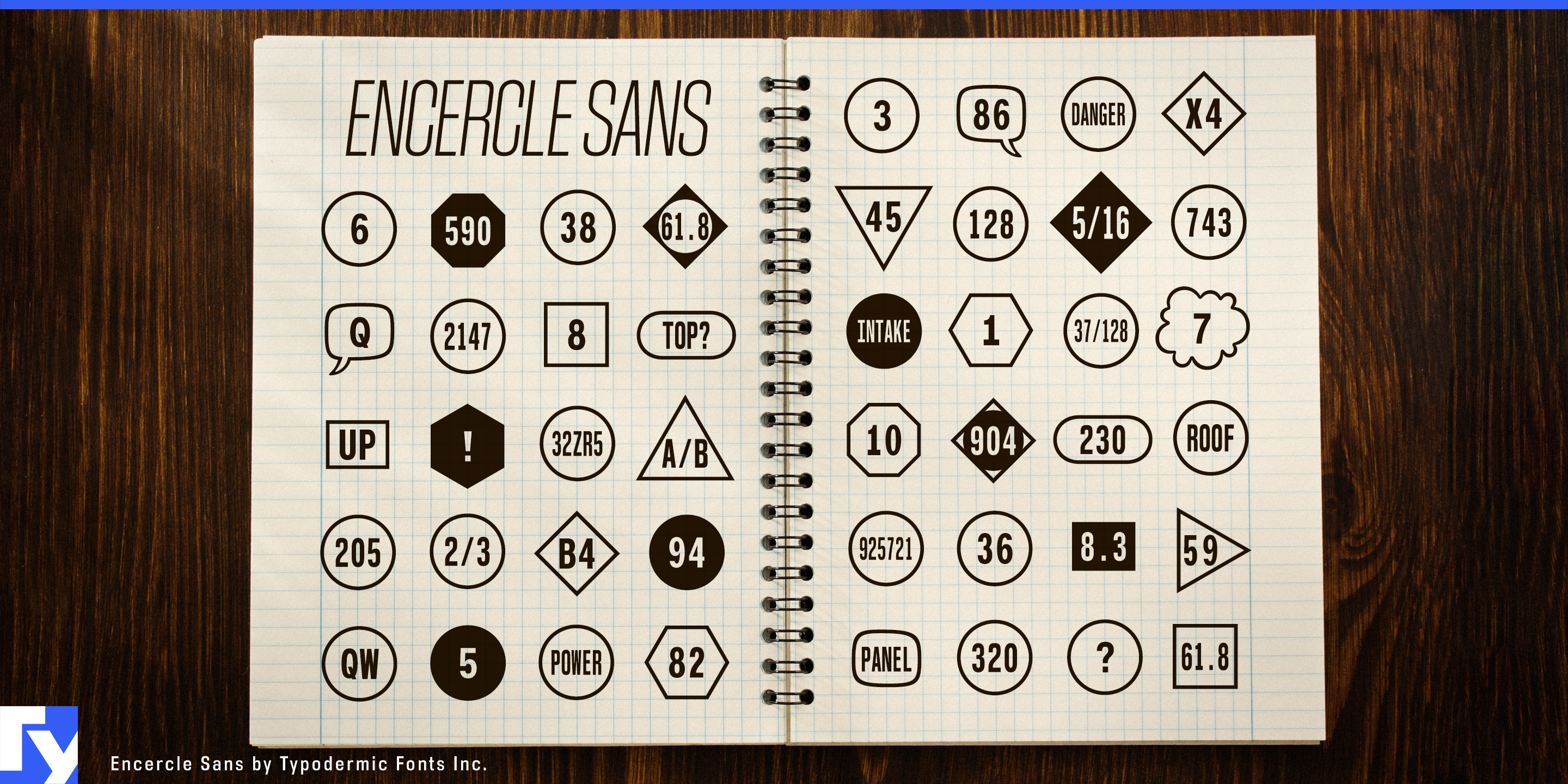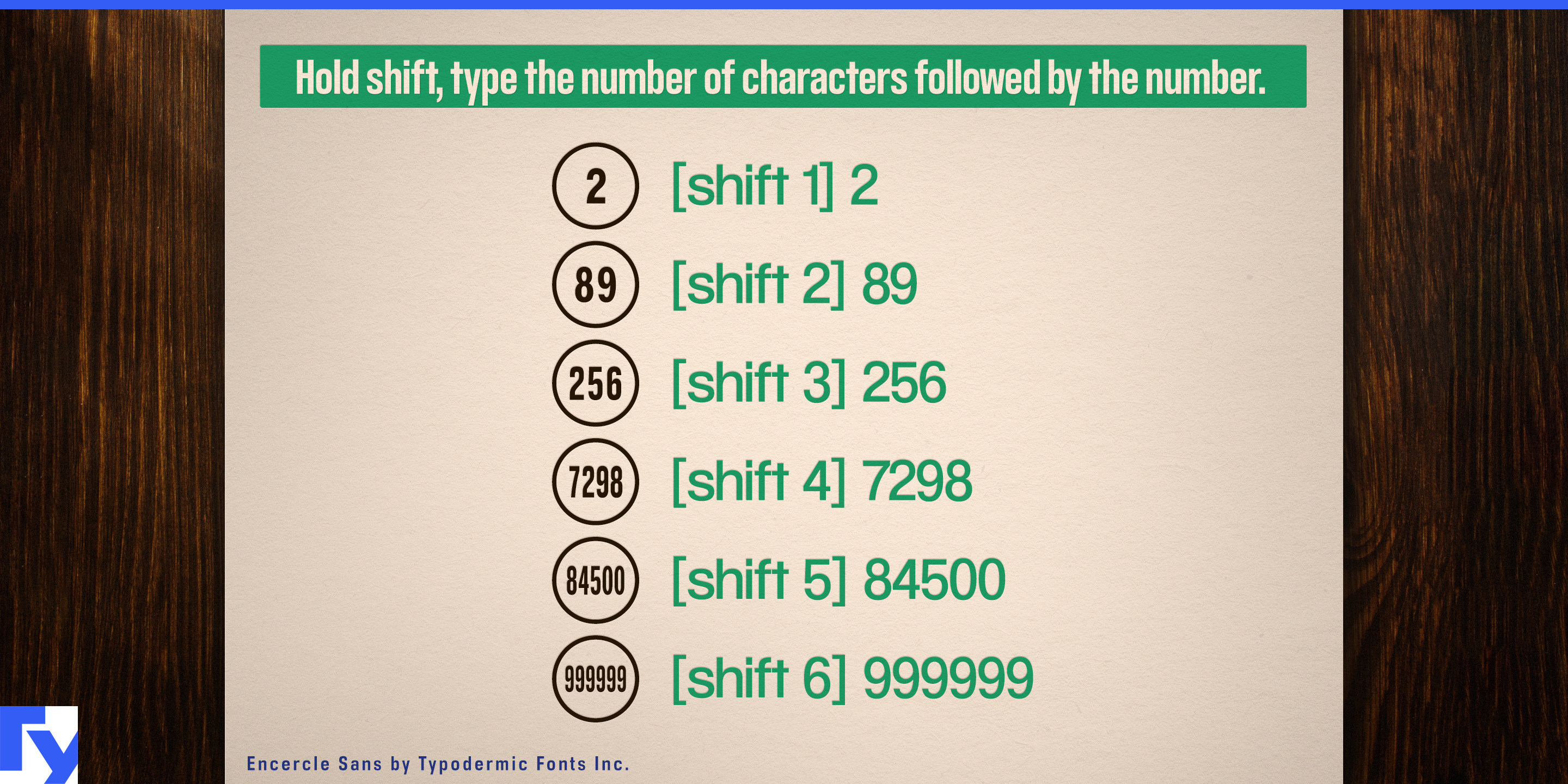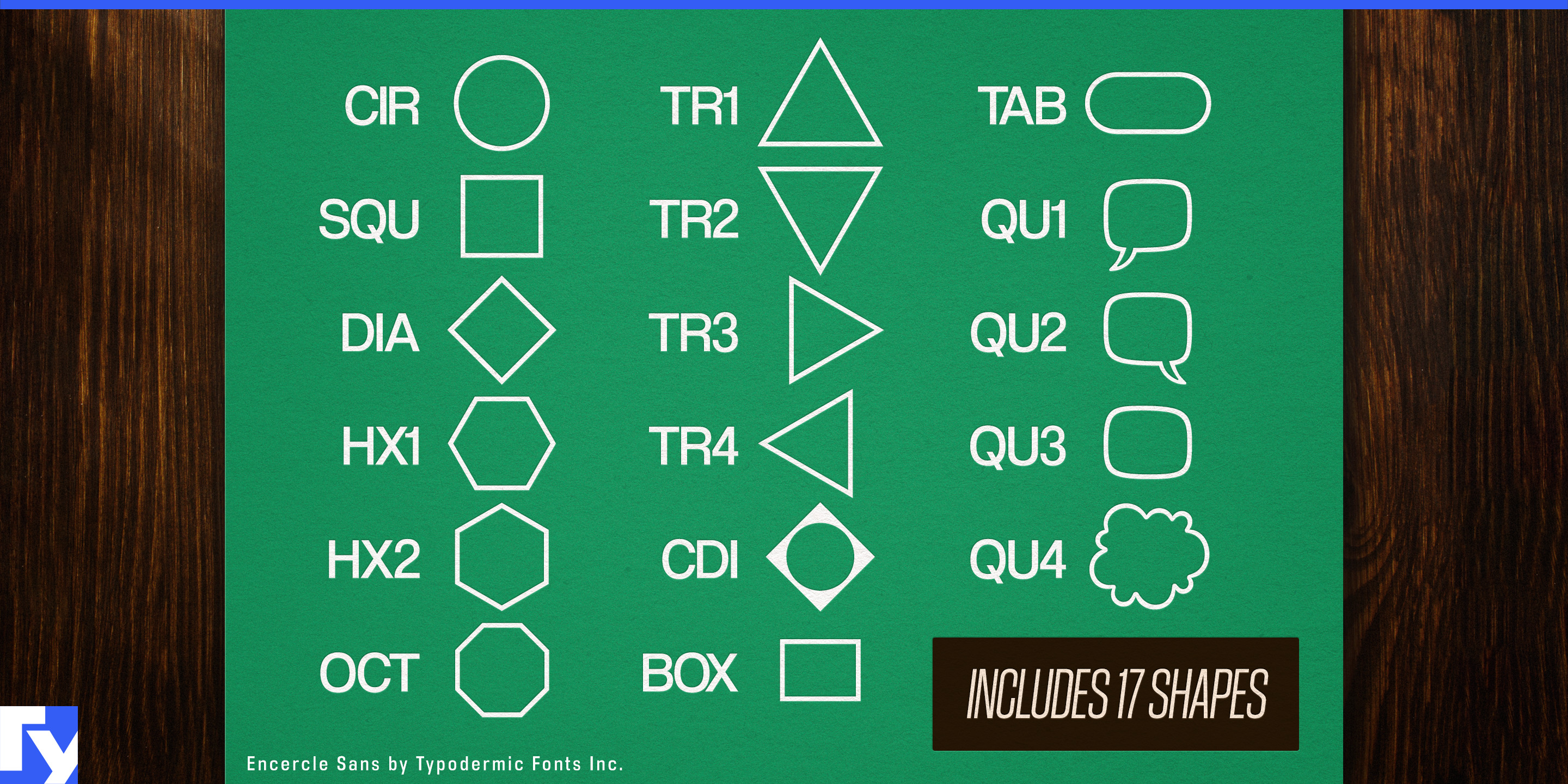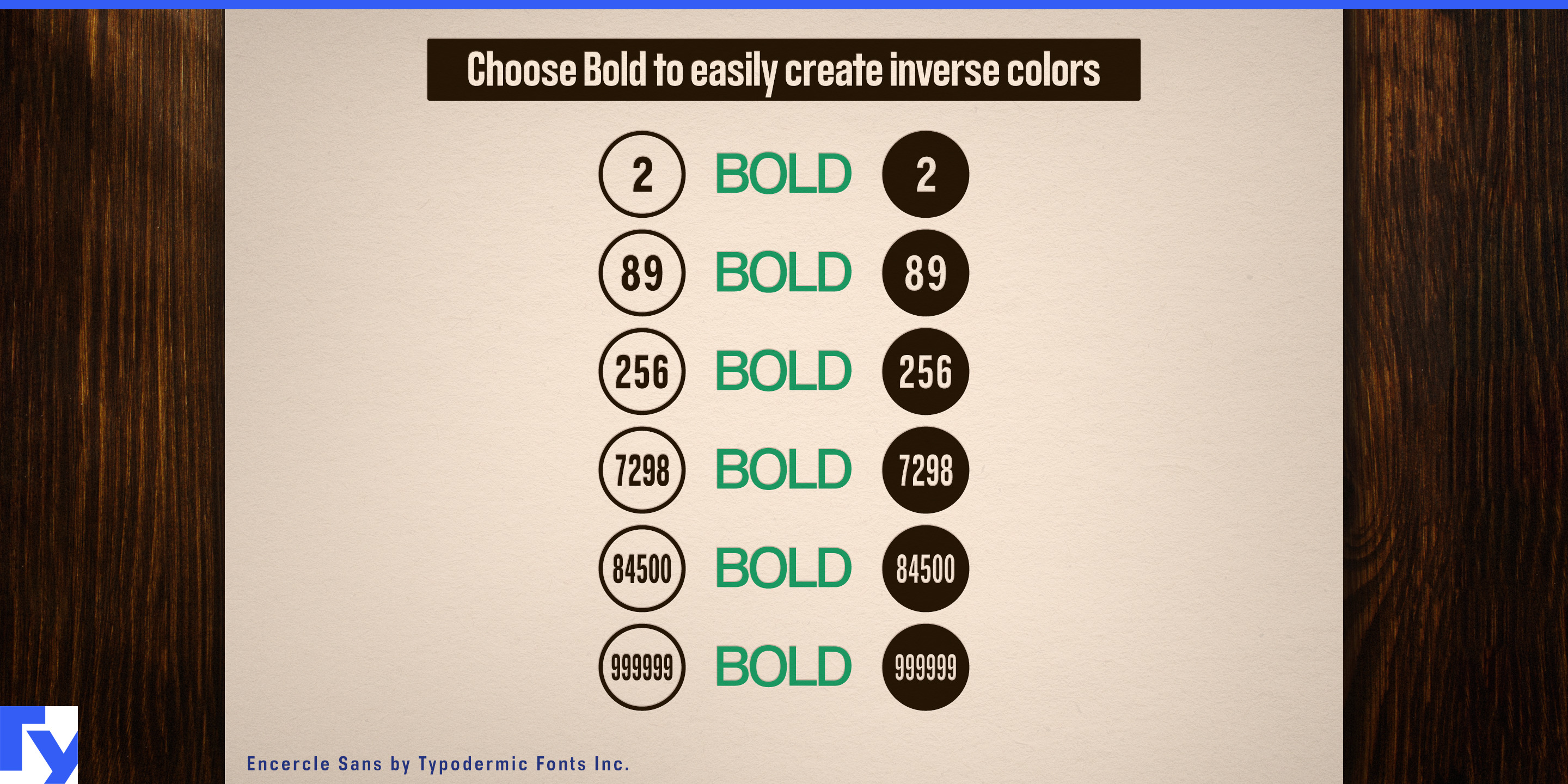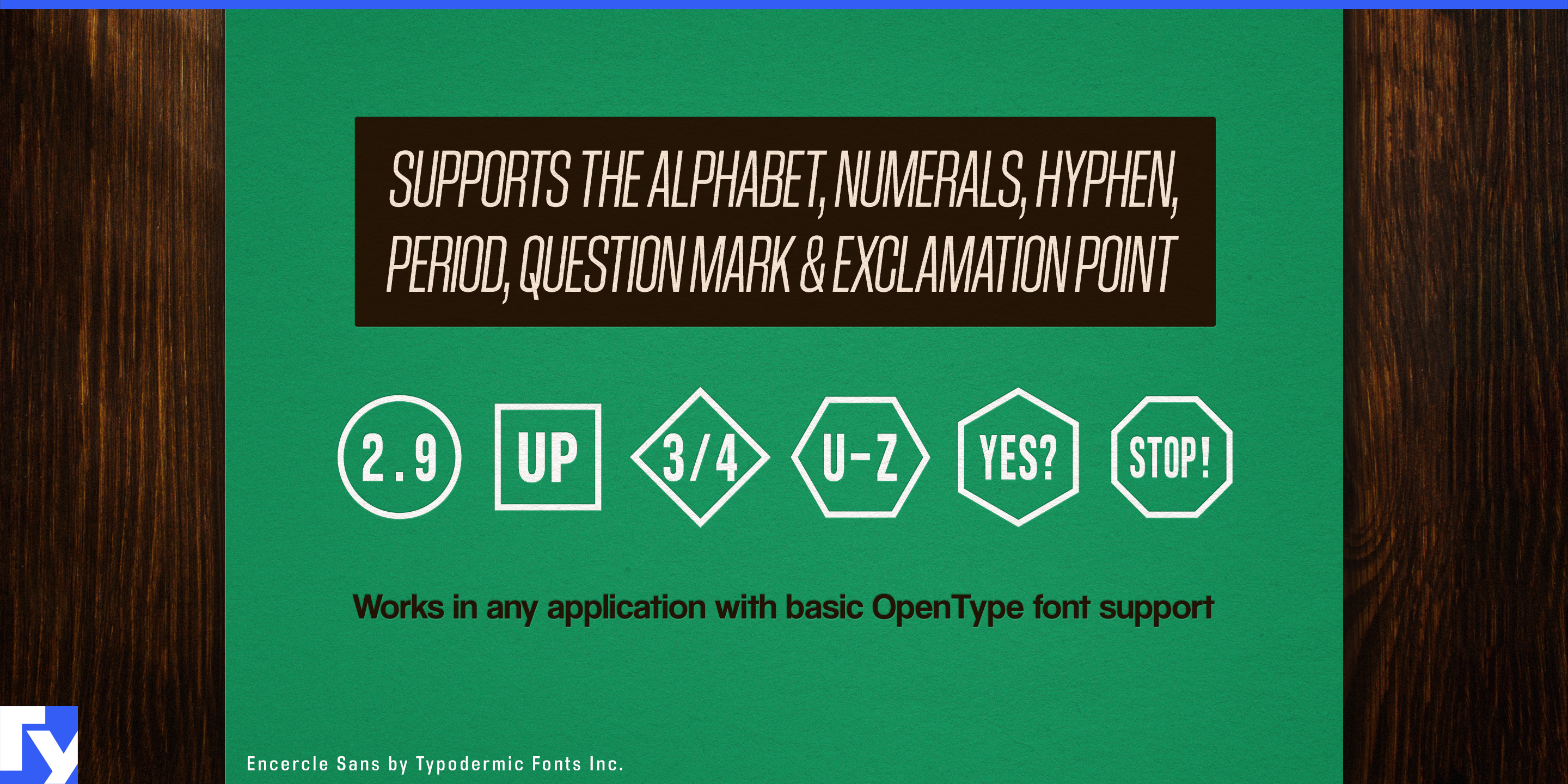
Encercle Sans
A numbered callout is easy to draw once. It becomes tedious when a diagram needs thirty of them, the numbering changes, several shapes are required, and every circle or box has to stay centred around its label. Encercle Sans turns that repetitive graphics job into typography, keeping framed identifiers editable as text instead of as collections of manually constructed objects.
Encercle Sans can frame labels of up to six characters using 17 different shapes, allowing the same system to handle numbers, letters and short codes. Circles can identify components, boxes can carry part references, while diamonds, polygons and directional forms can distinguish other categories. Inverse versions provide another level of contrast when selected markers need to stand out.
Instruction graphics are a natural use. Assembly manuals, exploded product diagrams, repair guides and installation sheets routinely need part numbers, step markers, warning references and component codes. If item 18 becomes item 27, the label can simply be edited rather than rebuilt and recentered.
Museums, exhibitions and visitor information present the same problem at a larger scale. Exhibit numbers, audio-guide references, gallery-map markers, room codes and floor-plan legends may appear across signs, brochures and diagrams. Festival maps, conference floor plans, trade-show guides, campus maps and hiking guides similarly depend on compact identifiers that connect locations to a legend.
The system also suits infographics, research figures, educational material and tabletop-game diagrams. Annotated photographs, process graphics, scientific figures, numbered objectives and map references can use different frame shapes while remaining part of one consistent visual language.
Encercle Sans grew from a practical request from an architect who wanted a simpler framed-number system. That production-minded origin remains its purpose: making callouts easier to create, revise and keep consistent. Its automatic framing depends on typographic feature support, so applications without the necessary substitution support may require the labels to be generated elsewhere and imported.